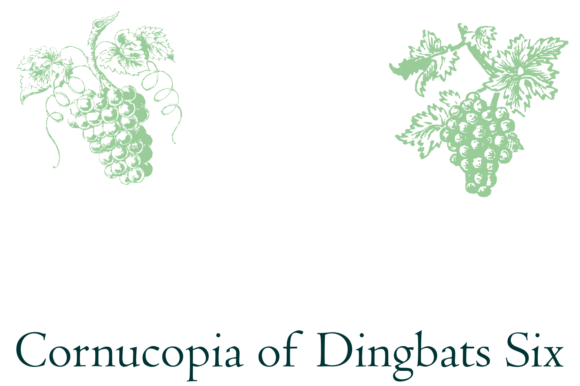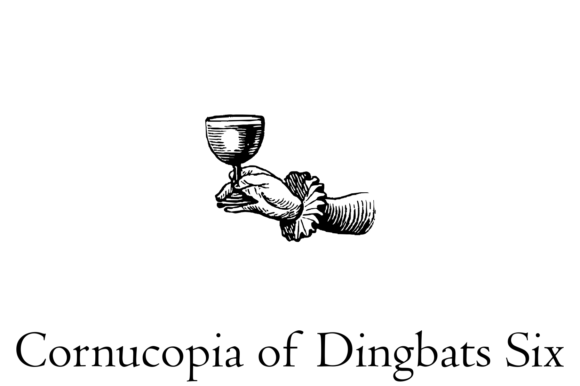
The Cornucopia of Dingbats Six Font: A Treasure Trove of Vintage Ornaments
Are you a designer or crafter looking for a unique and versatile font to add a touch of elegance to your projects? Look no further than the Cornucopia of Dingbats Six font. This exquisite collection is a mix of classical vintage dingbats and ornaments, perfect for those seeking to add a dash of sophistication and whimsy to their designs.
What is the Cornucopia of Dingbats Six Font?
The Cornucopia of Dingbats Six font is a carefully curated selection of dingbats and ornaments, meticulously crafted to provide a rich source of inspiration for designers, crafters, and anyone looking to add a touch of personality to their projects. This font is an extension of the classic dingbat fonts, but with a unique twist that sets it apart from more modern and generic offerings.
A Mix of Classical Vintage Dingbats and Ornaments
What makes the Cornucopia of Dingbats Six font truly special is its blend of traditional vintage dingbats and ornaments. Each character in the font has been carefully designed to evoke a sense of nostalgia, while also providing a fresh and modern aesthetic. From intricate borders and frames to elegant floral motifs and abstract designs, this font has something for everyone.
Key Features of the Cornucopia of Dingbats Six Font
- Extensive Character Set: The Cornucopia of Dingbats Six font features an extensive character set, including a wide range of dingbats, ornaments, and decorative elements.
- Vintage Inspiration: Each character in the font is inspired by classic vintage designs, ensuring a unique and timeless aesthetic.
- Scalability: The font is highly scalable, making it perfect for use in a variety of projects, from business cards to billboards.
Uses for the Cornucopia of Dingbats Six Font
The Cornucopia of Dingbats Six font is incredibly versatile, making it suitable for a wide range of projects and applications. Here are just a few ideas to get you started:
- Graphic Design: Use the font to add a touch of elegance to your graphic designs, including brochures, flyers, and posters.
- Crafting: The font is perfect for crafters, providing a range of decorative elements and ornaments to use in scrapbooking, card making, and other paper crafts.
- Web Design: Add a touch of sophistication to your website with the Cornucopia of Dingbats Six font, perfect for use in headers, footers, and other design elements.
- Stationery: Use the font to create beautiful and unique stationery, including letterheads, invoices, and greeting cards.
Tips for Getting the Most from the Cornucopia of Dingbats Six Font
To get the most from the Cornucopia of Dingbats Six font, here are a few tips to keep in mind:
- Experiment with Different Sizes: The font is highly scalable, so don’t be afraid to experiment with different sizes to achieve the desired effect.
- Combine with Other Fonts: Try combining the Cornucopia of Dingbats Six font with other fonts to create a unique and eye-catching design.
- Use as a Background Element: Use the font as a background element to add texture and interest to your designs.
The Cornucopia of Dingbats Six font is a treasure trove of vintage ornaments and dingbats, perfect for designers and crafters looking to add a touch of elegance and whimsy to their projects. With its extensive character set, vintage inspiration, and ease of use, this font is sure to become a go-to resource for anyone looking to create beautiful and unique designs.